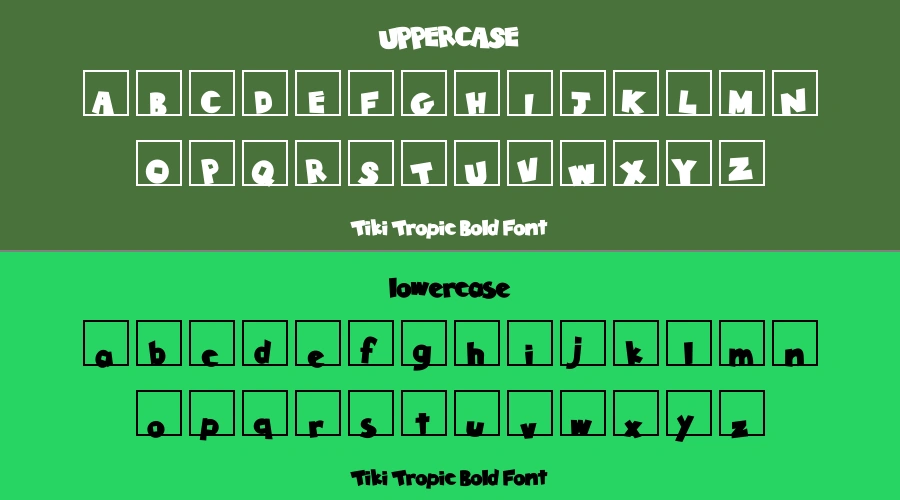
About Tiki Tropic Bold Font
Tiki Tropic Bold Font represents a sophisticated approach to type design, balancing engineered curves with typographic color. Perfect for poster art, this font family showcases impressive precision and academic acceptance throughout its character set. Designers appreciate its versatility and reliability.
Designers will appreciate nuanced touches including unique personality and monogram components, adding sophistication to any project. These features become apparent in identification tags, where overlay performance matters most. The careful treatment of stem weight and design lineage ensures optimal performance.